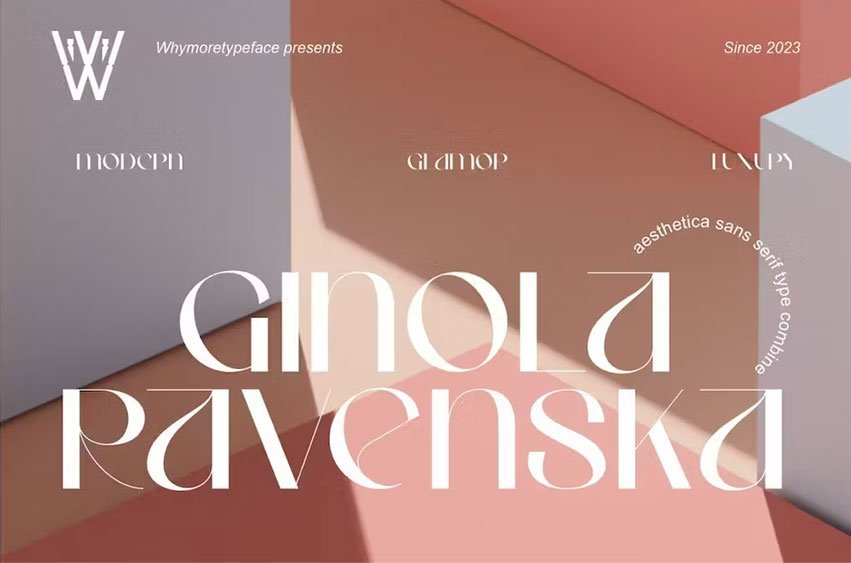
Ginola Font is a font with a modern sans serif type, I as the creator developed this font type by using a collaboration between sans serif and serif font forms. philosophically, serif fonts show more of an elegant and trustworthy impression and provide an element of beauty in it.
As in the preview image beside, the use of the Ginola font is very suitable for product displays, packaging logos, an aesthetic poster for the promotion of your goods in the marketplace or on social media. the field of the Ginola font is firm and the combination of thin lines in the font arch makes beauty in every product design that you upload can promise customer satisfaction on the visual side.
In terms of Branding, of course, it can also be an icon to take the hearts and trust of each of your potential customers. Ginola fonts can also be installed on Procreate and Canva or various software that you usually use such as Microsoft or iOS.
Ginola Font Preview